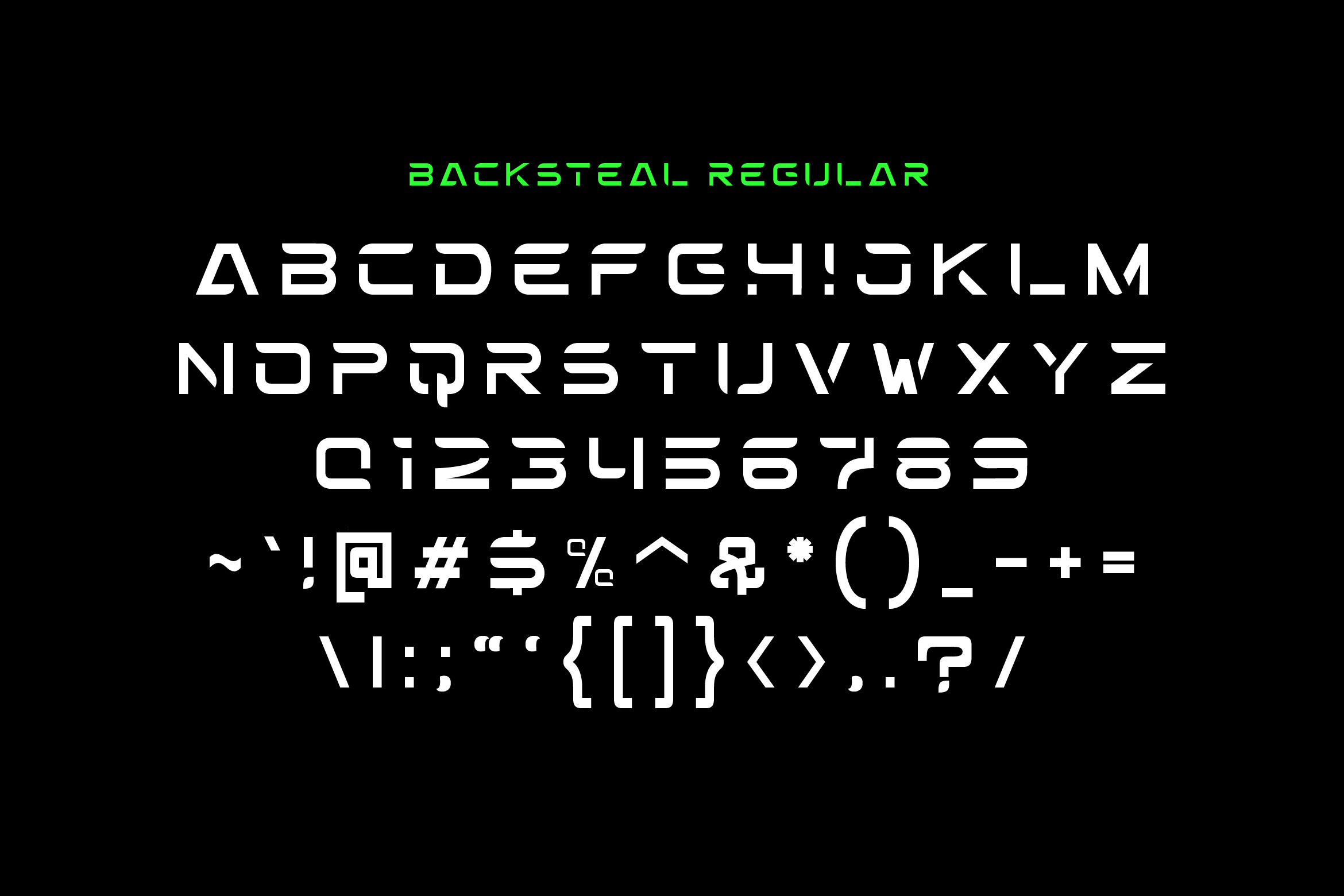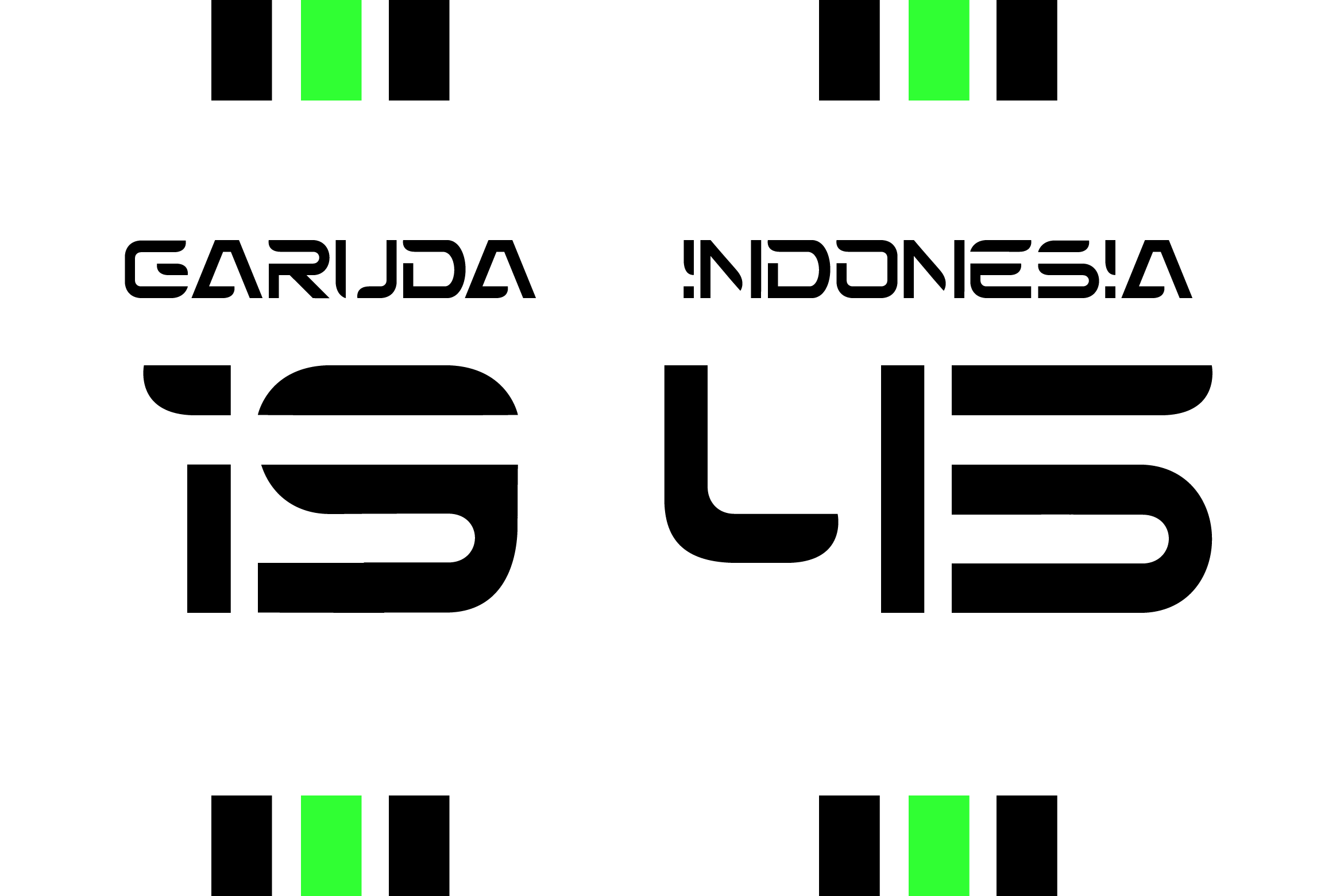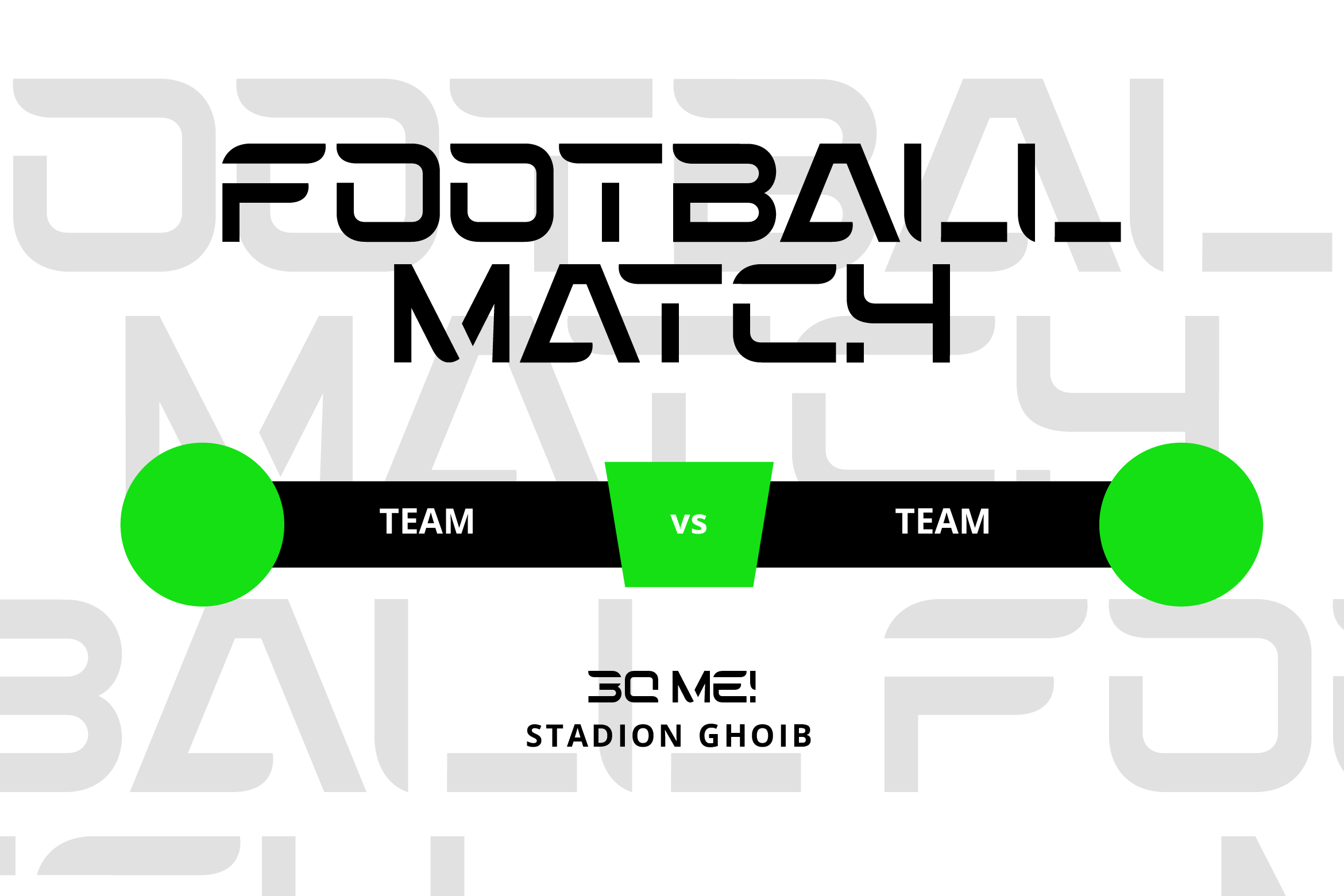
Backsteal Font
Backsteal Display Font
It’s a sport-style font. Backsteal is perfect for sports, apparel, promo, and large headline uses. Its versatility allows you to brand each sport, so you could utilize Backsteal on each sports jersey to tie things together!